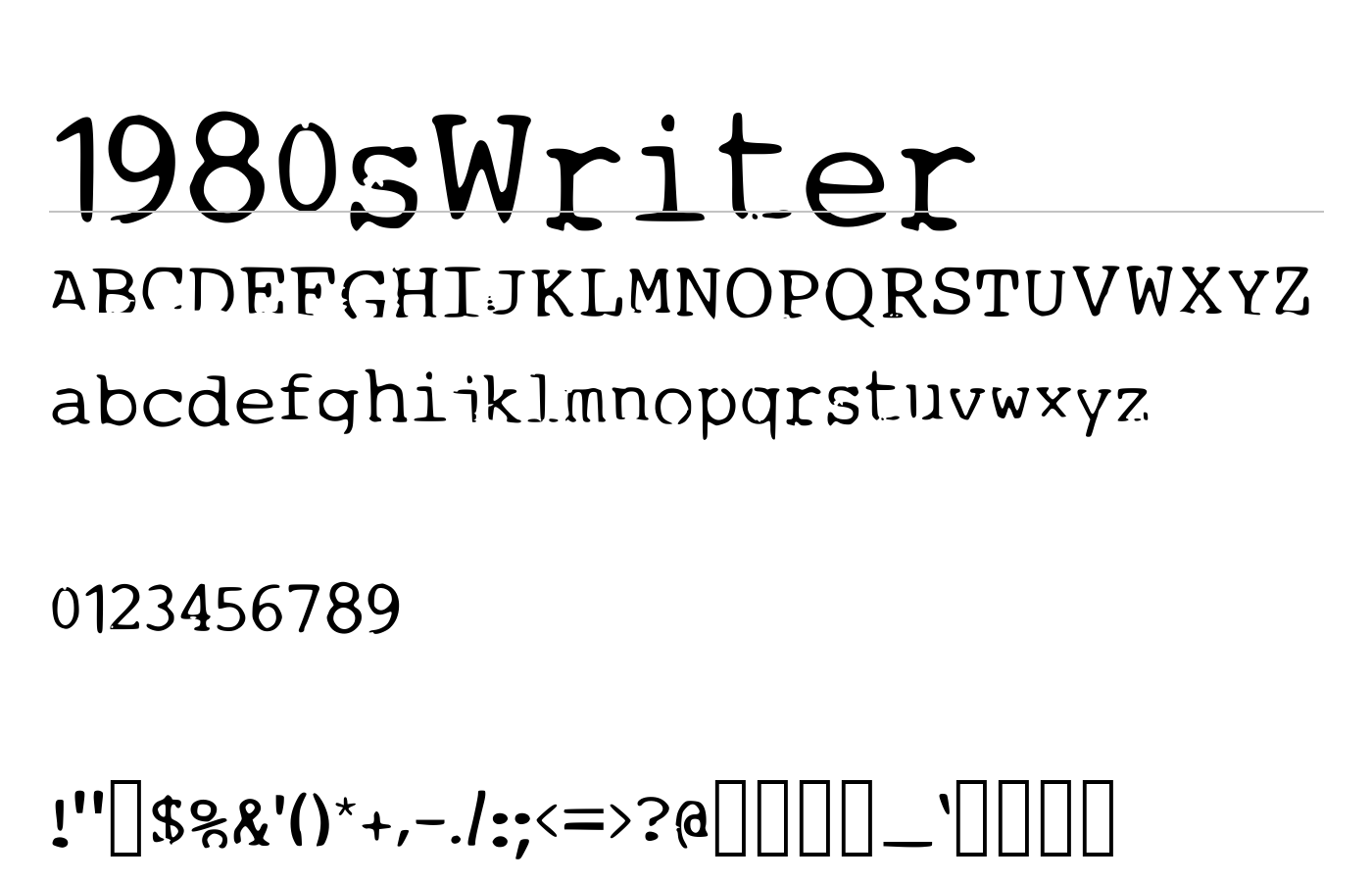
1980sWriter is a quirky serif font that mimics the imperfect, mechanical feel of old typewriter text with uneven stroke widths and irregular shapes, giving it a charming vintage character. Its medium weight and casual serifs make it ideal for creative projects, retro branding, or editorial designs seeking an authentic nostalgic vibe. This font works best for headlines, posters, and packaging where a touch of personality and historic flair is desired.
1980sWriter Font